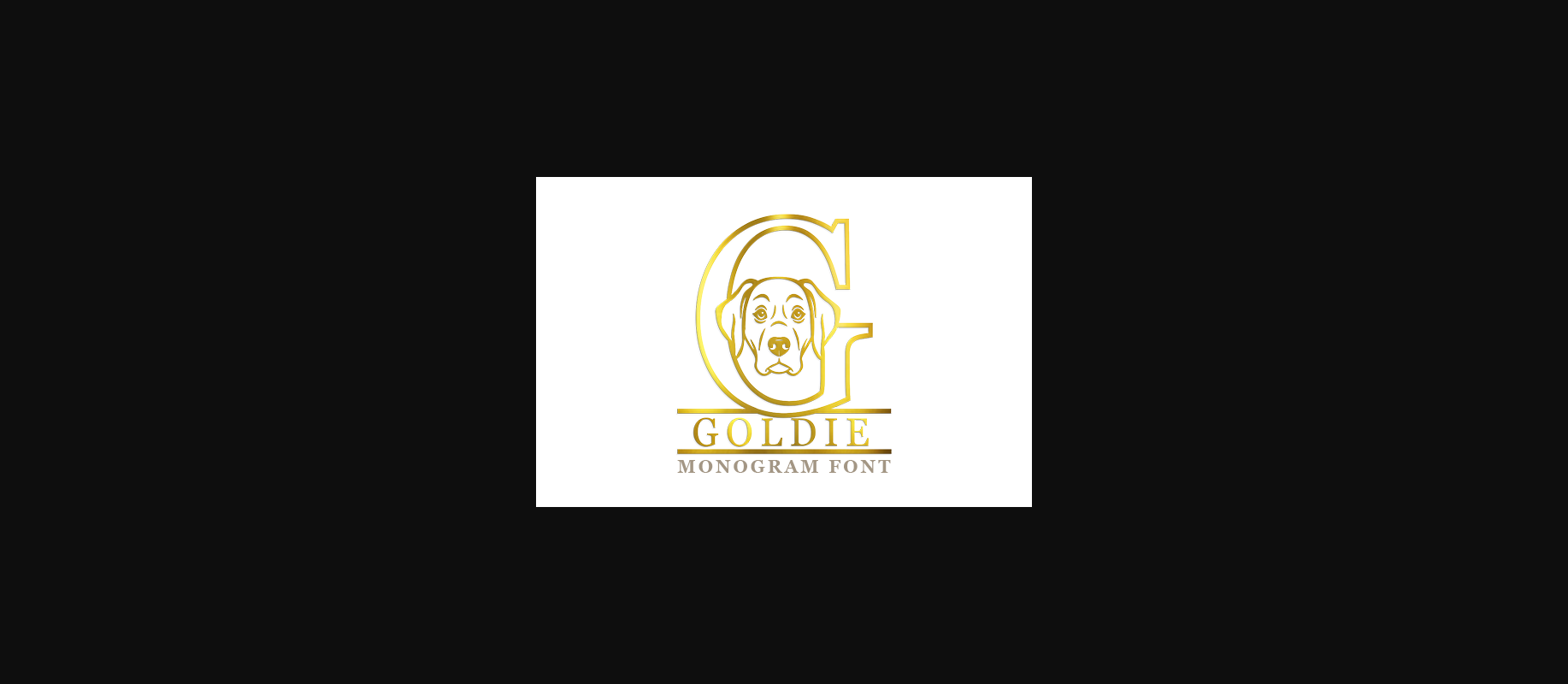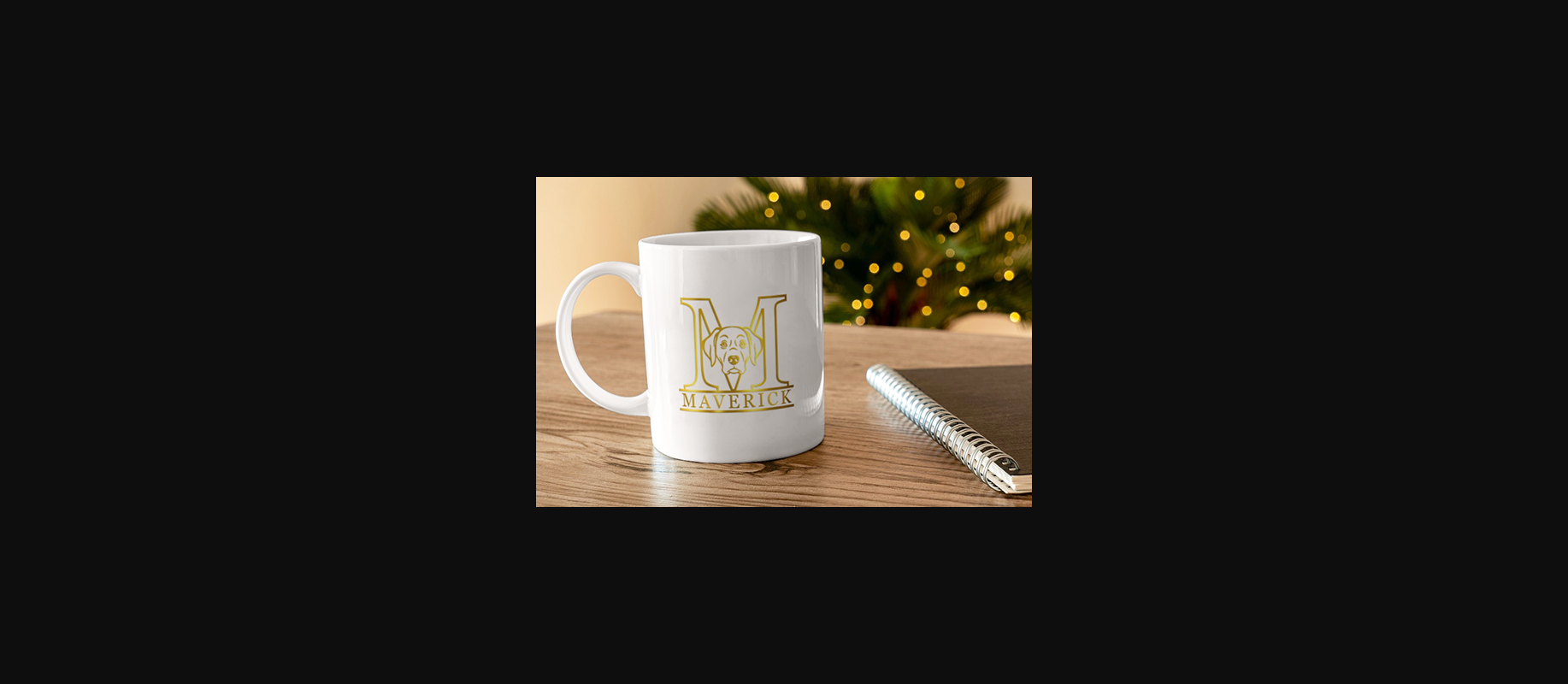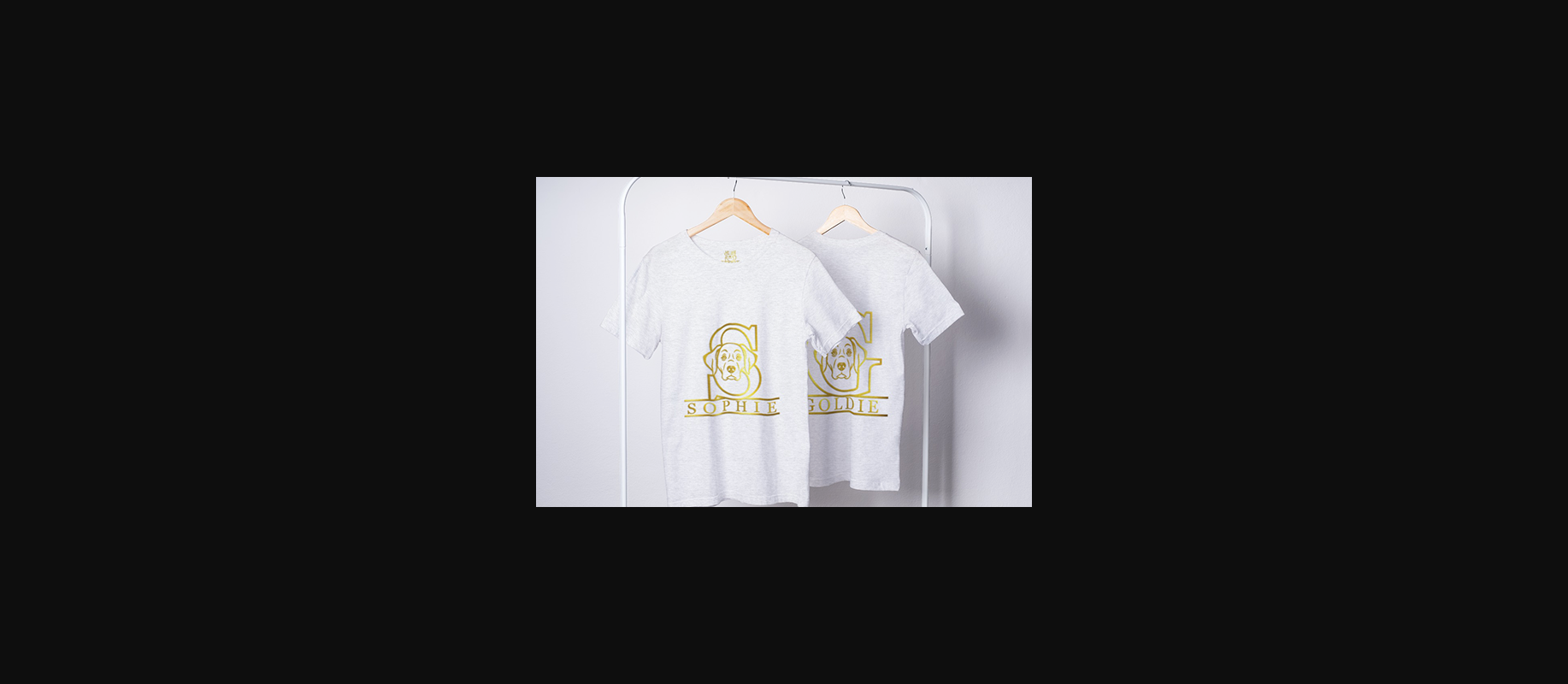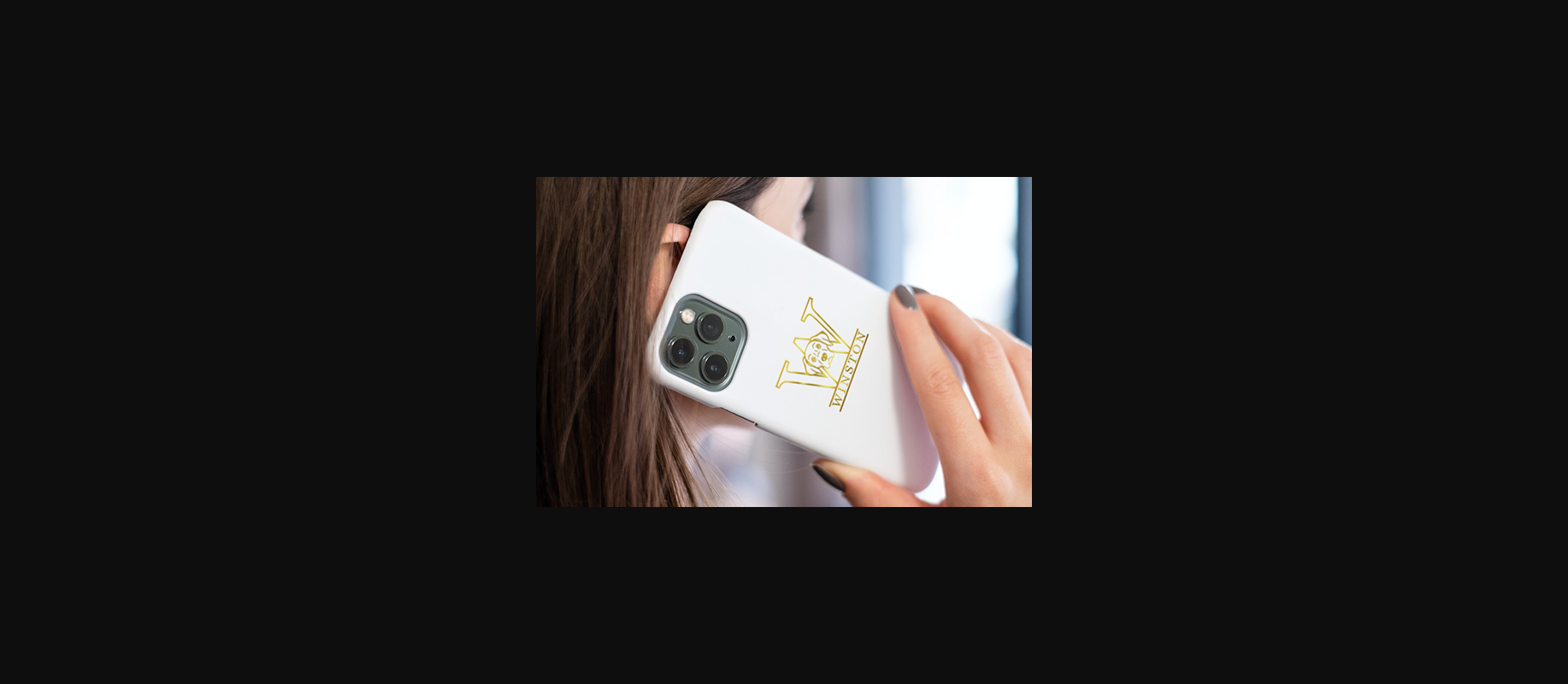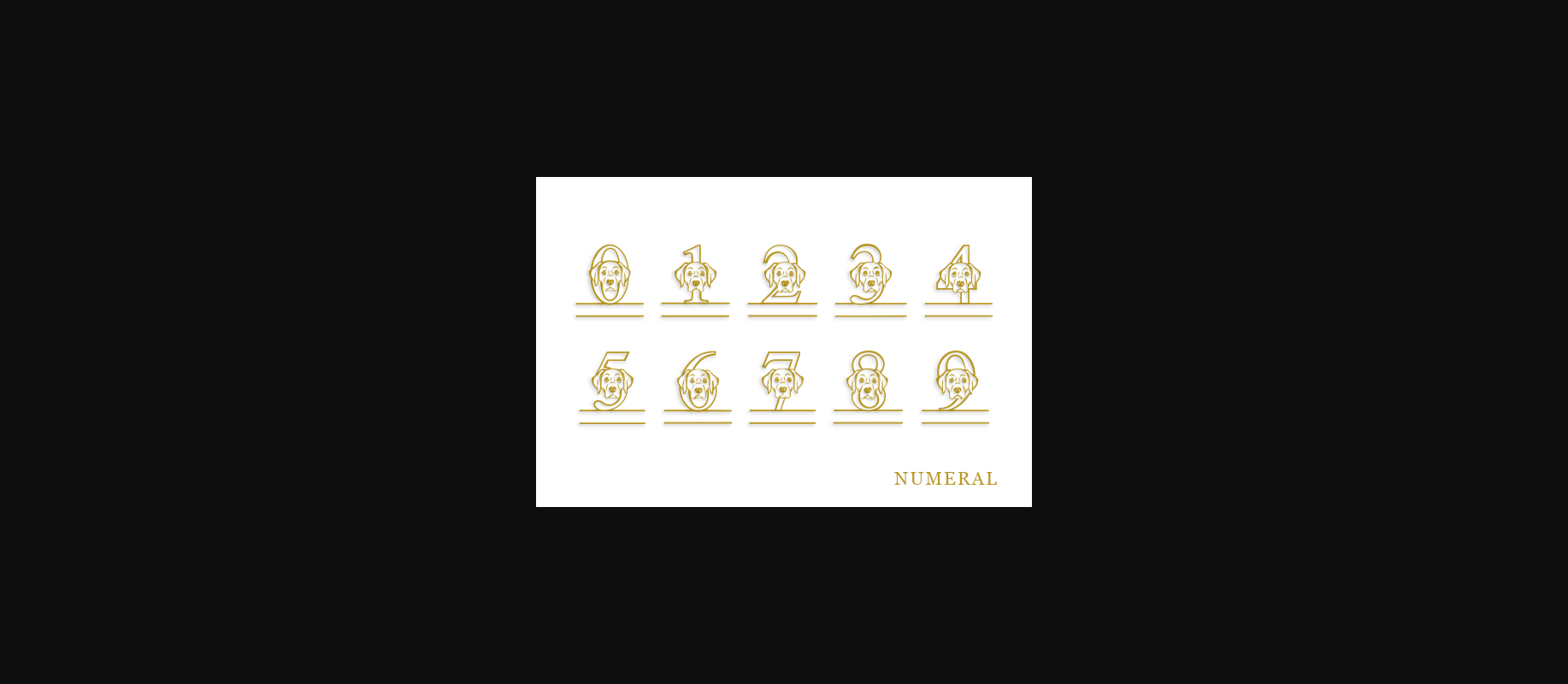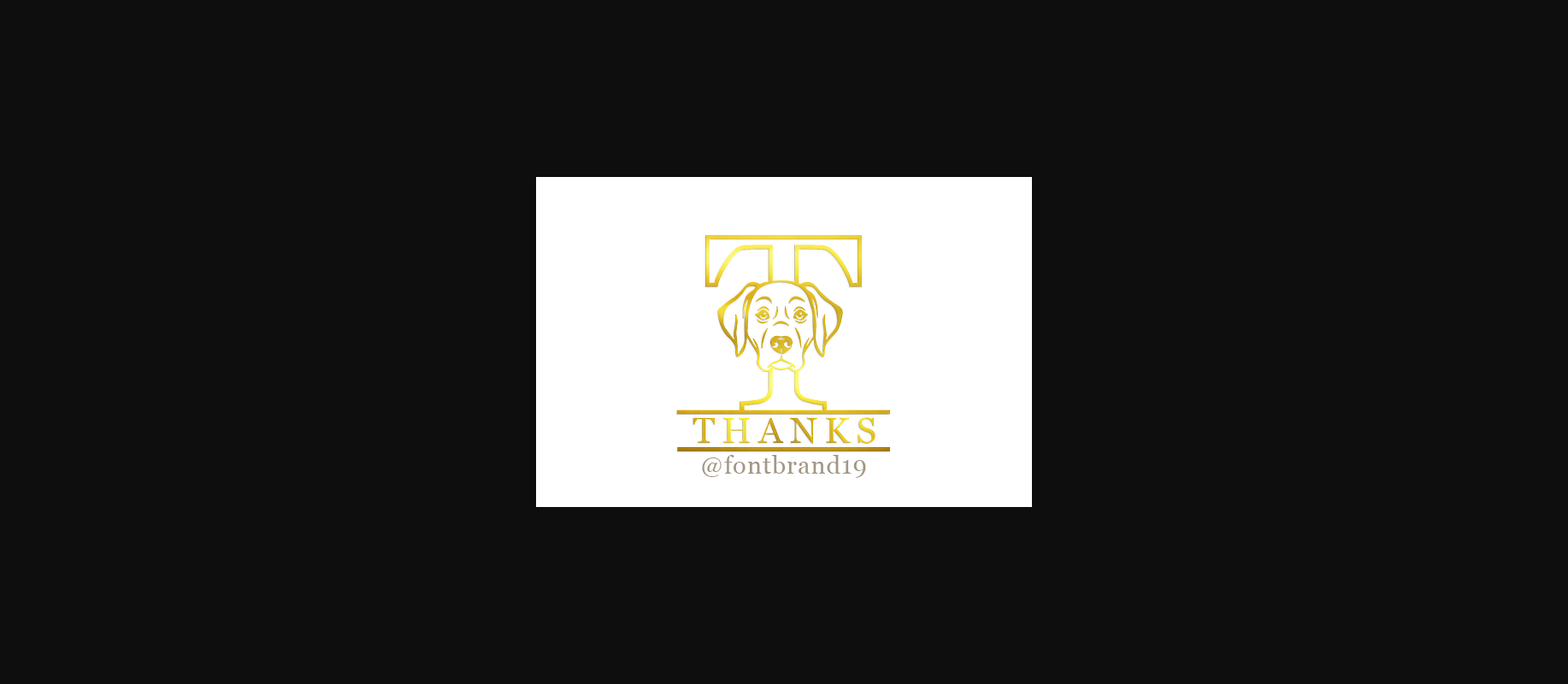
Golden Retrieve Monogram Font
About Golden Retrieve Monogram Font
Golden Retrieve Monogram is an elegant decorative font, featuring lovely ornaments. Fall in love with its authentic feel and use it to create gorgeous wedding invitations, beautiful stationary art, eye-catching social media posts, and cute greeting cards.